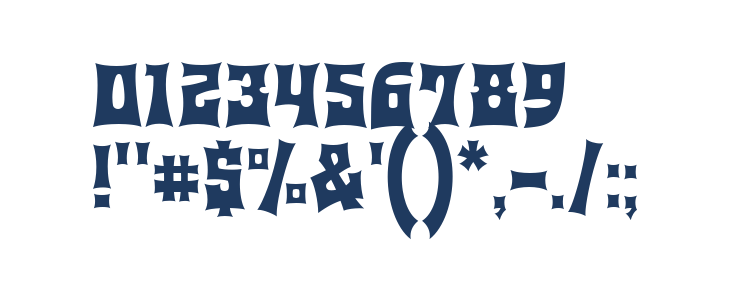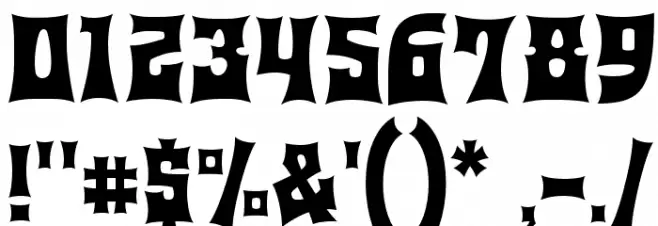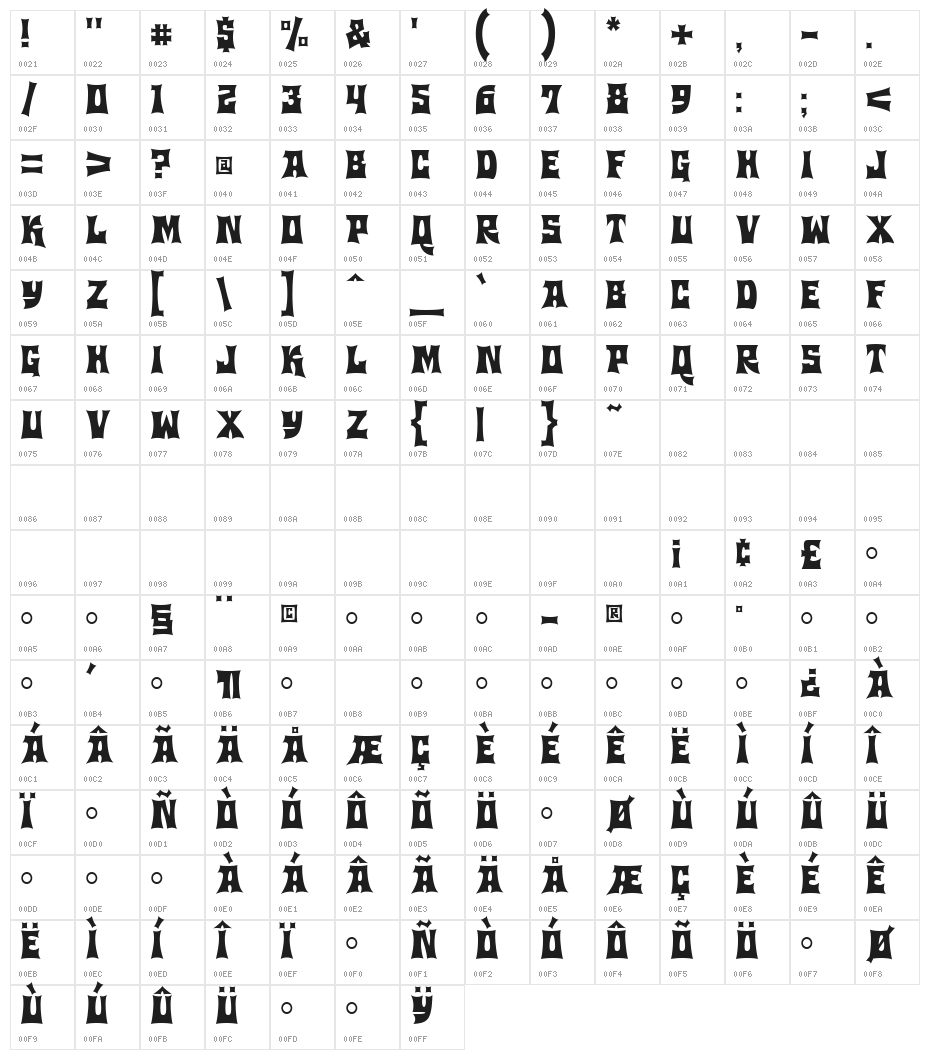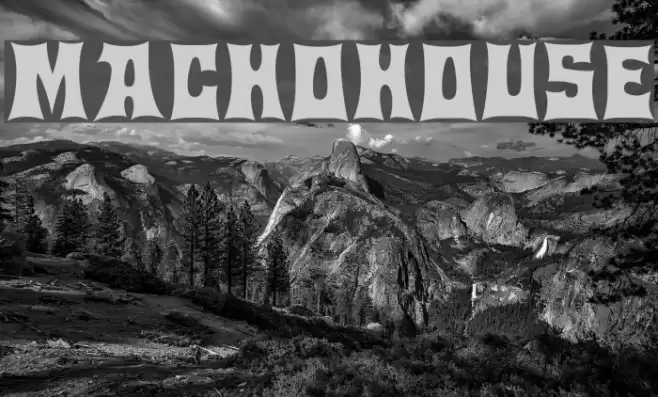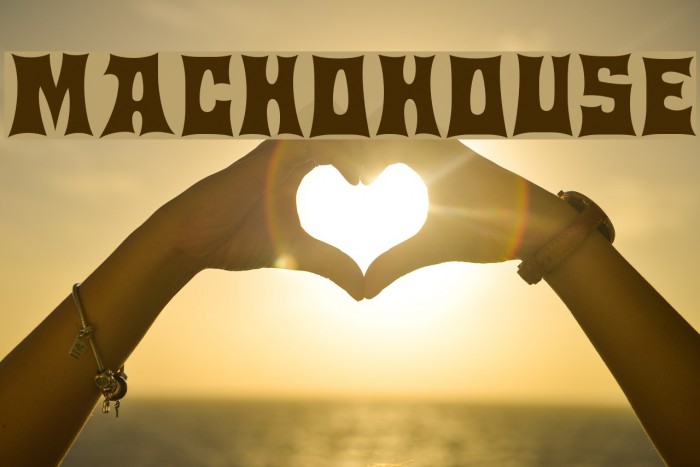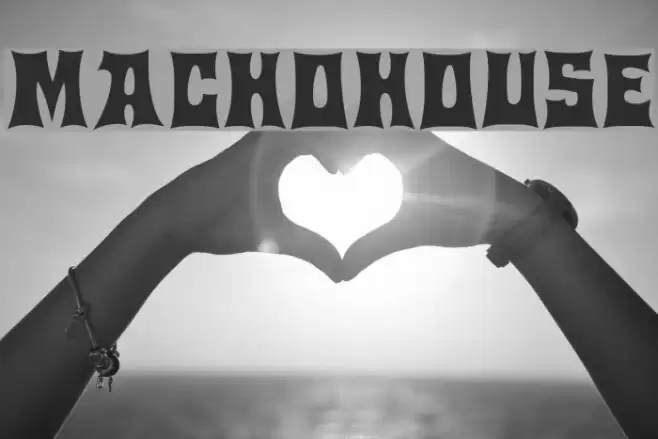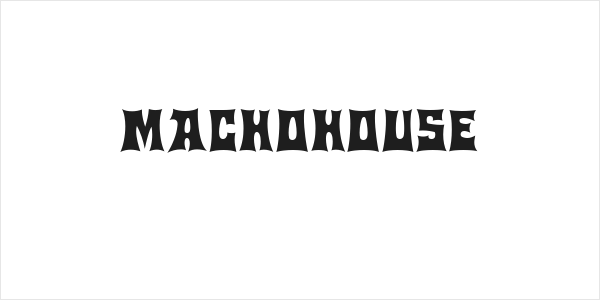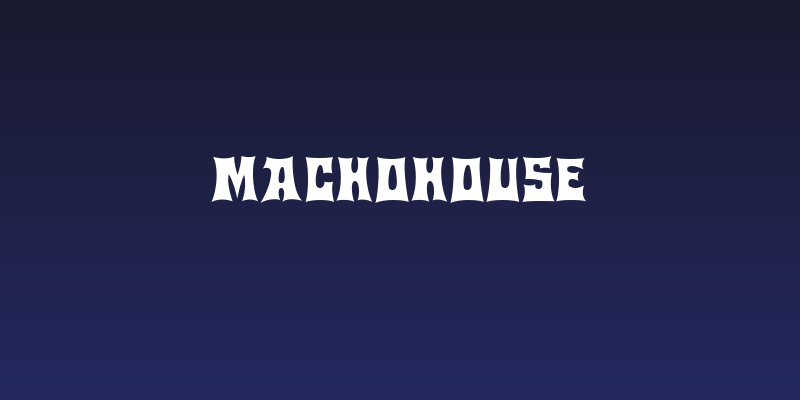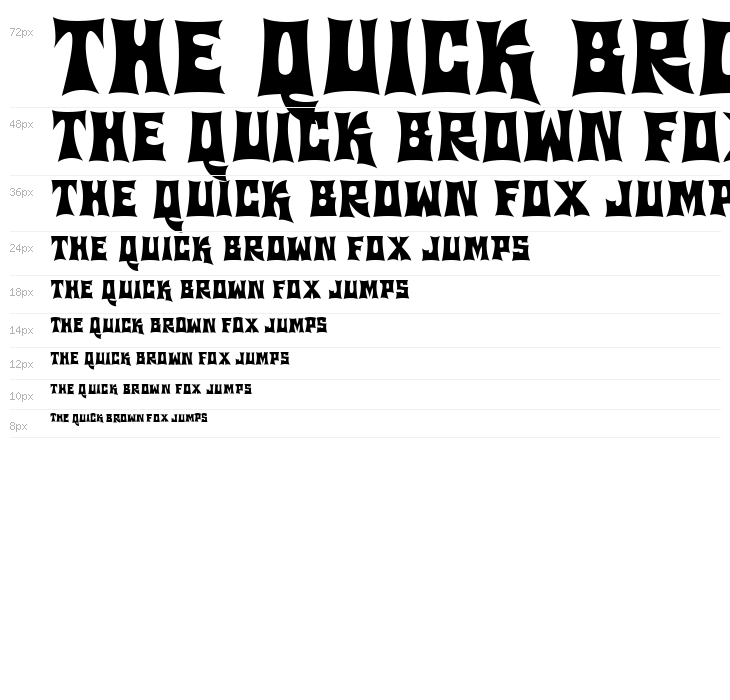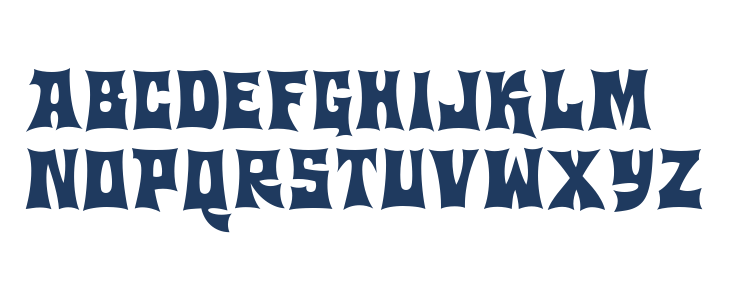
Machohouse Font
Machohouse Description
This font features bold, angular characters with a distinct, edgy style. The letters are characterized by sharp points and thick strokes, giving them a strong, impactful appearance. The uppercase and lowercase letters maintain a consistent design, with the uppercase being slightly more pronounced. Numbers and special characters follow the same bold and angular aesthetic, ensuring a cohesive look across all elements. The font's unique style makes it stand out, with a design that feels both modern and slightly retro, reminiscent of vintage poster fonts.
| Overall Style | Modern, Vintage |
| Proposed Projects | Ideal for posters, logos, album covers, and any project requiring a strong, eye-catching typeface. |